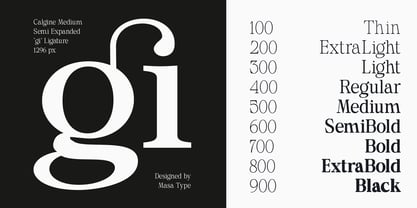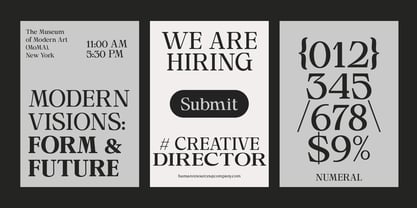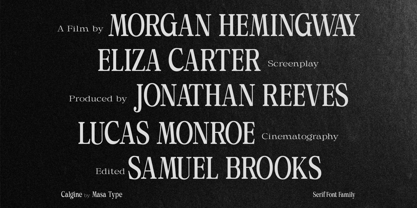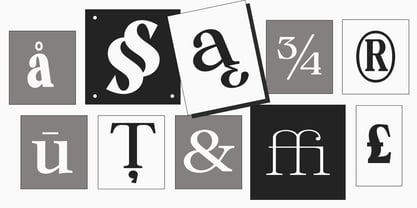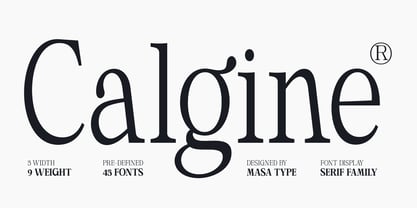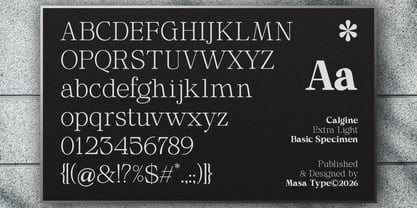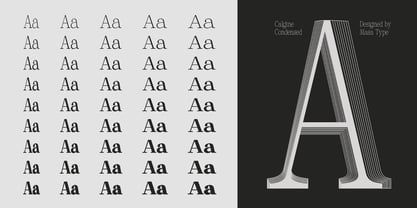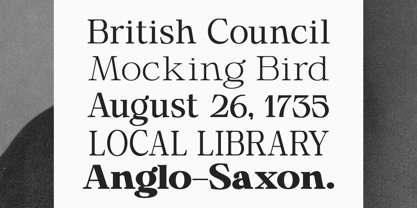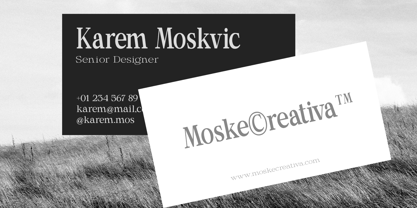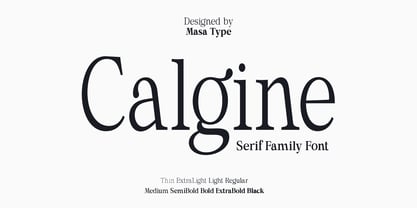
Calgine Serif Variable
by Masa Type
The Calgine Serif Variable Font Family was designed by Jumm ati and published by Masa Type. Calgine Serif Variable contains 46 styles and family package options. More about this family
Calgine is a modern variable serif typeface that blends luxury, clarity, and contemporary elegance into one highly versatile font family. Designed with a delicate balance of sharp details and soft curves, Mighast delivers a confident yet graceful character, making it ideal for premium and modern design applications. Featuring 9 weights and 5 widths with a smoothly variable axis, Calgine offers up to 46 styles, including an upright form. This extensive flexibility allows designers to refine typography with precision—from clean, minimalist layouts to bold, expressive statements. Balanced proportions, high legibility, and consistent rhythm work beautifully across a variety of large display sizes and smaller text settings. Perfect for: branding and logos, editorial design, UI/UX, web and app interfaces, advertising, packaging, and high-end display typography. Key features: Fully variable font for maximum flexibility Luxurious modern sans-serif character Balanced sharp and soft shapes for a premium feel A comprehensive font family suitable for both display and text use Calgine empowers designers with creative freedom and typographic consistency—one sophisticated font family for modern visual communication.